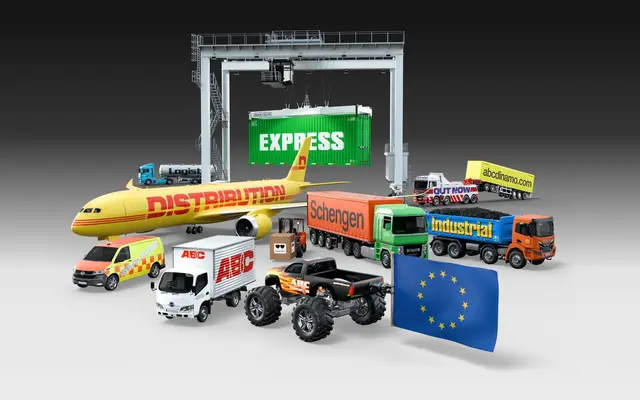
ABC Schengen
A nine-family, vibes-based system across A/B/C widths plus Core, Line, Zone and three monos, riffing on Helvetica and Eurostile across Latin, Cyrillic and Greek.
An expansive system by Seb McLauchlan with Luke Charsley, planned and built over six years. ABC Schengen takes the Eurozone's logistics and infrastructure typography as cue and slides Schengen A, B and C along a shared width axis from soft Helvetica towards boxy Eurostile, with monospaced equivalents that lean closer to Aldo Novarese than Max Miedinger. Beyond the core trio, Schengen Zone adds chiselled serifs, Schengen Line smooths and tensions the geometry, and Schengen Core rebuilds on a smaller footprint. Nine weights with italics, all sharing structural dimensions, covering Latin, Cyrillic and Greek. Graphics by Johannes Breyer, Seb McLauchlan, Mimi Schmidl, Asel Tambay and Barnaby Mills; spacing and kerning by Igino Marini.
Dinamo describe ABC Schengen as a multi-genre collection inspired by the Eurozone's visual language of cross-border, free-flowing logistics, manufacturing and construction. Soft Helvetica and boxy Eurostile sit in the background as 'spirit animals', with a width axis sliding between Schengen A, B and C; the monos lean closer to Aldo Novarese than Max Miedinger.
Optical sizes and widths
Schengen ASchengen BSchengen CoreSchengen LineSchengen ZoneSchengen A MonoSchengen B MonoSchengen C Mono